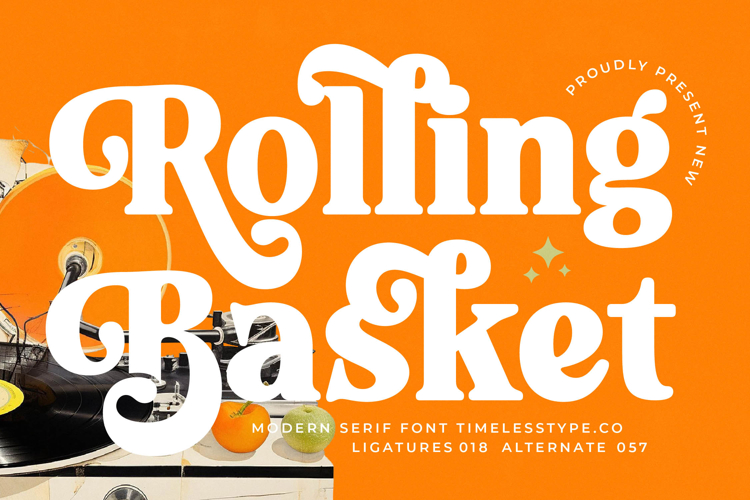
Rolling Basket - Modern Serif Font
Command attention with the unparalleled charm of Rolling Basket - Modern Serif Font. This typeface merges classic elegance with a distinctively modern, playful twist, creating a truly captivating presence. Its robust weight and fluid, organic curves lend an immediate sense of sophisticated confidence to any design project. Experience a font that not only conveys information but also embodies a powerful visual statement.
The design of Rolling Basket - Modern Serif Font is meticulously crafted, featuring bold strokes and subtly flared, distinctive serifs that provide both stability and character. This unique combination ensures exceptional readability while maintaining its artistic flair, making it perfect for both striking headlines and engaging body text in larger sizes. Its high-contrast letterforms offer outstanding visual impact across various mediums.
Expand your creative horizons globally with Rolling Basket - Modern Serif Font. With its extensive multilingual support, Rolling Basket - Modern Serif Font adapts seamlessly across global markets, making it incredibly versatile for international projects. This feature ensures your brand’s message maintains its integrity and sophistication, reaching diverse audiences without compromise, establishing a truly universal brand identity.